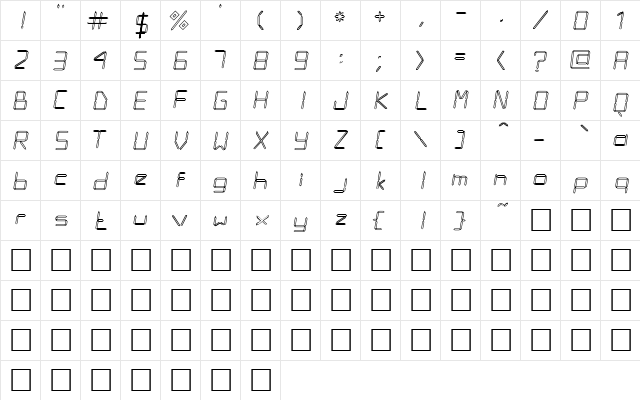
LED Display Regular Font Preview
LED Display Regular
Design Context for LED Display Typeface
LED Display brings ornamental detail and strong personality to headlines and identities, where visual impact matters more than quiet functionality.
Font Pairing: Pair with a clean neutral sans-serif for body copy to let LED Display's character lead without overwhelming the composition.
Pro Tip: Treat LED Display as the centrepiece of your typographic hierarchy. One strong heading set in a decorative face can carry an entire layout.